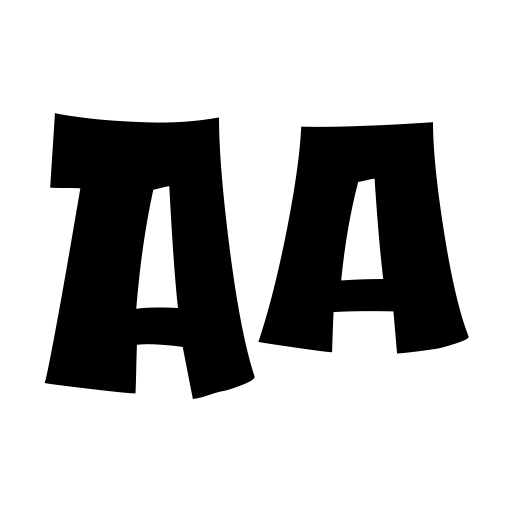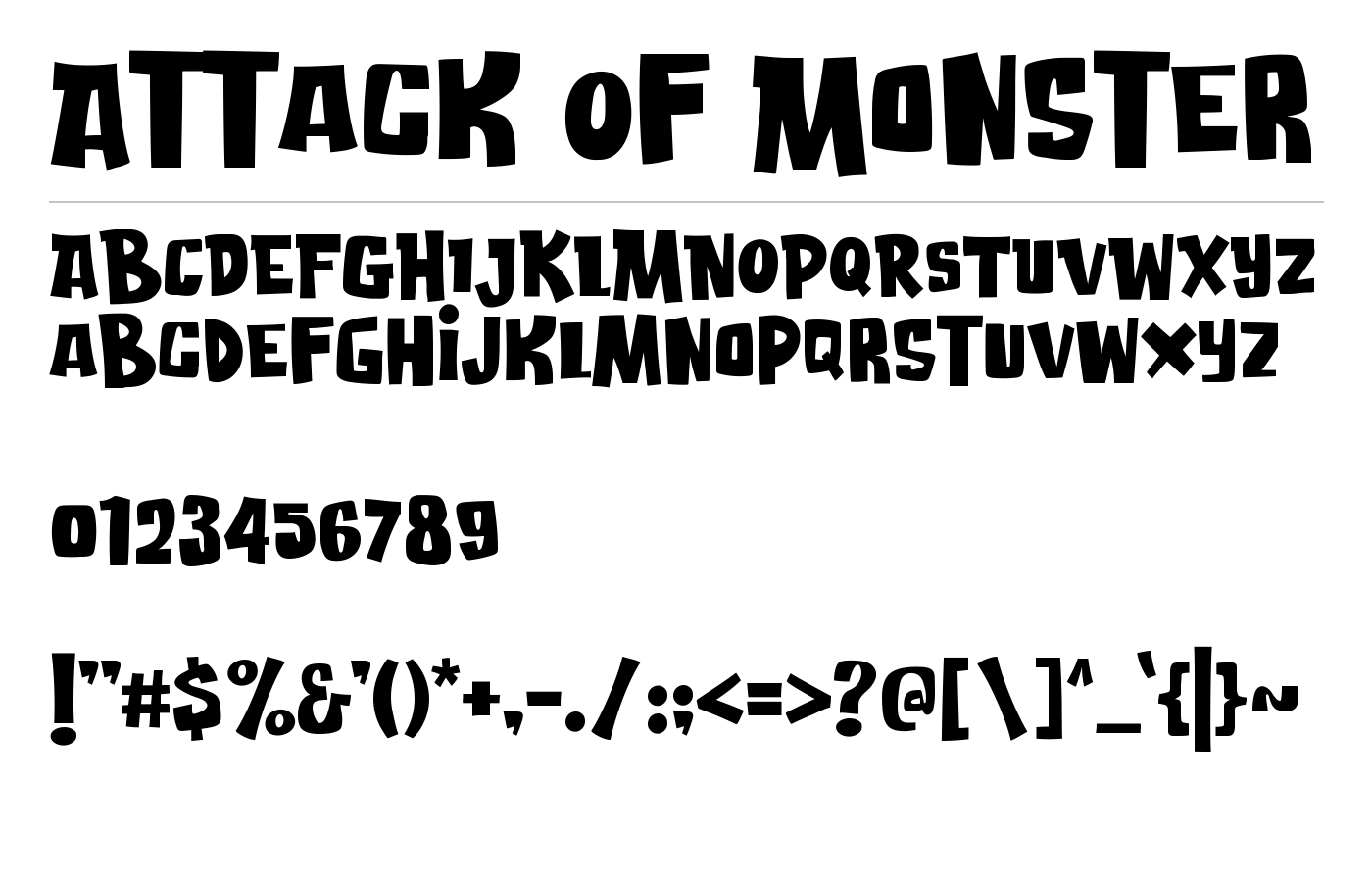
Attack Of Monster is a bold, playful sans serif font with a quirky, uneven style that feels energetic and fun. Its chunky, irregular letter shapes create a lively, informal vibe perfect for Halloween themes, children’s projects, or any design needing a dynamic and eye-catching display. This font works great for posters, logos, and headlines where a strong, whimsical personality is desired.
Attack Of Monster Font
About Attack Of Monster Font
| Font family | Attack Of Monster Font |
| Designer | Sahirul Puguh |